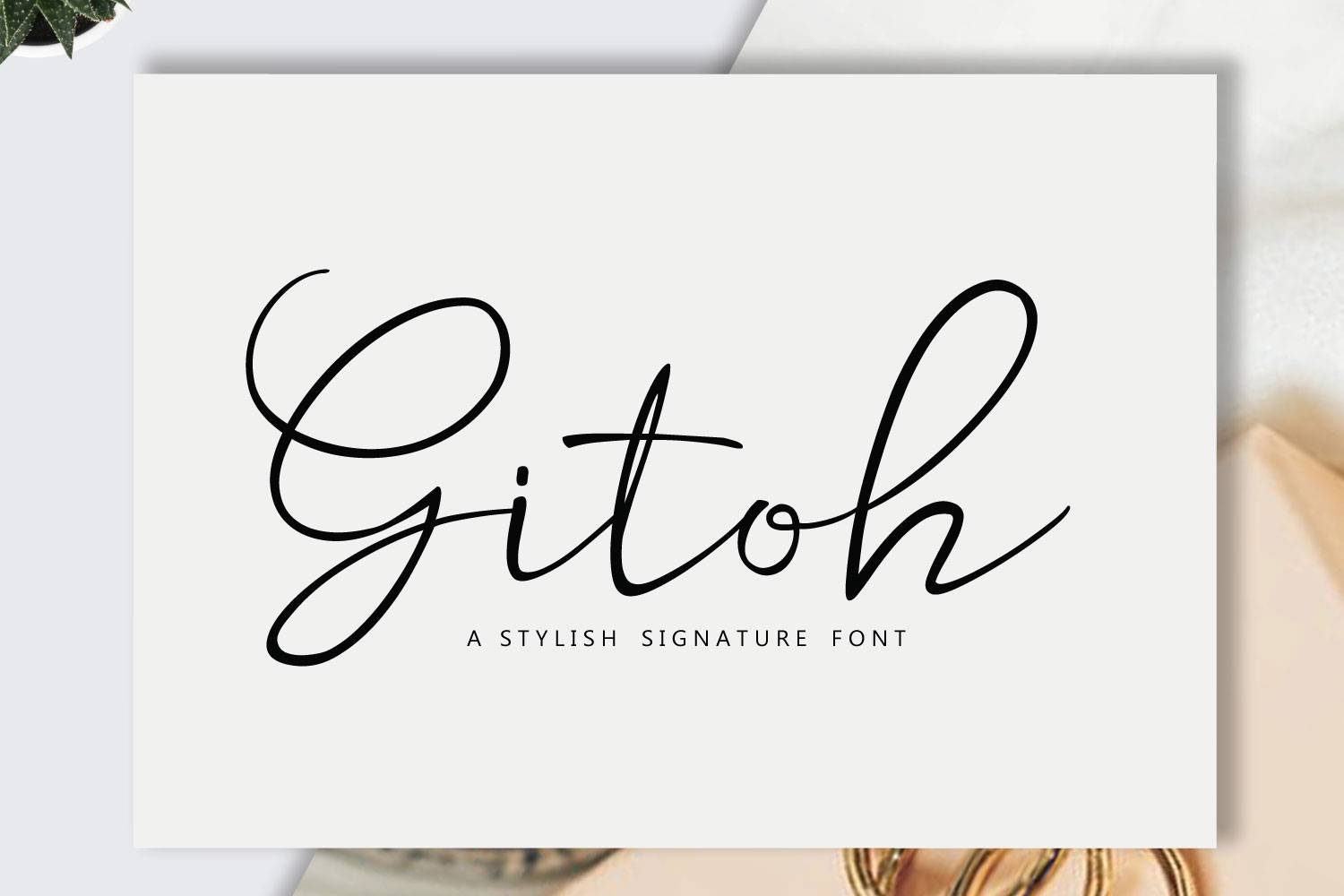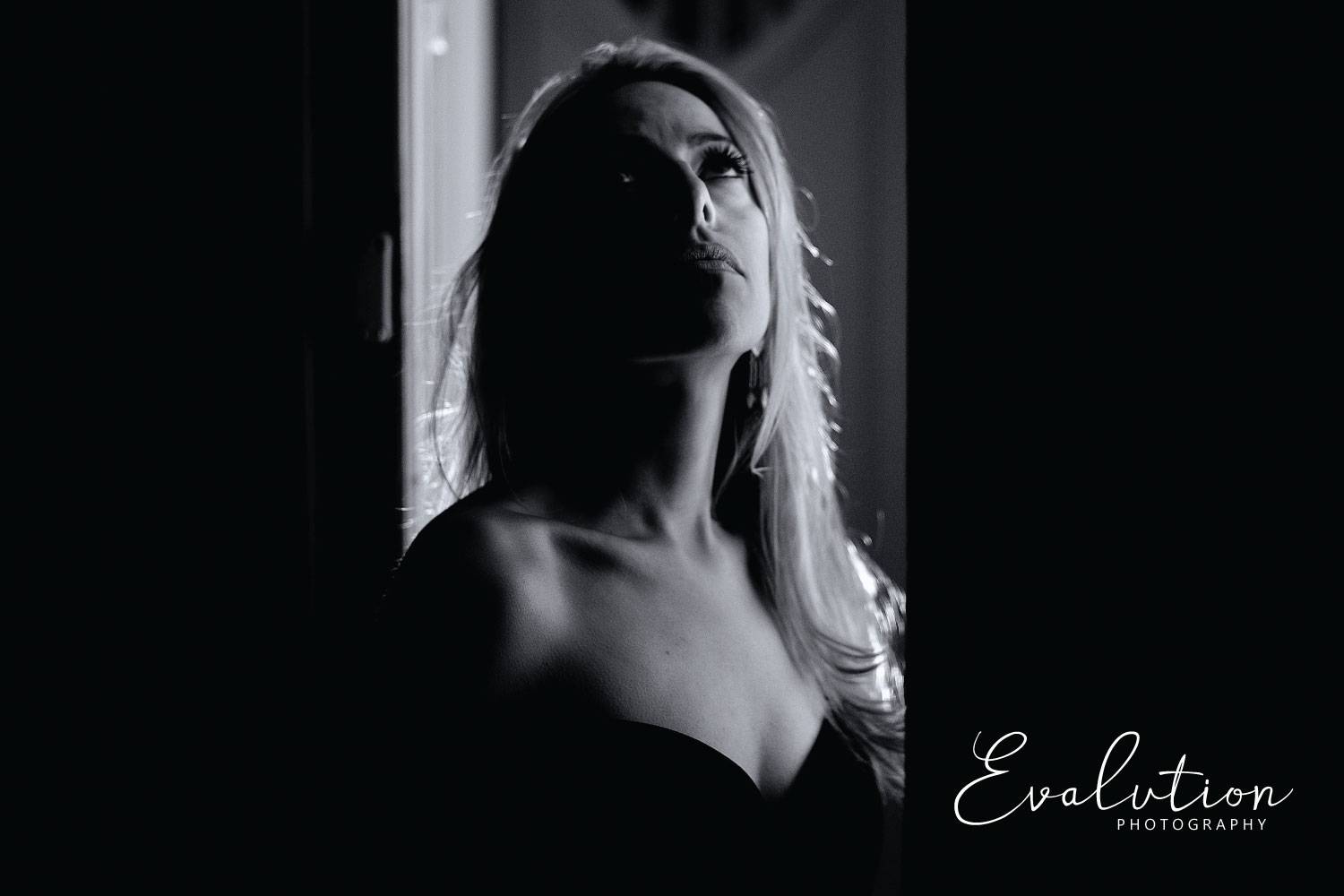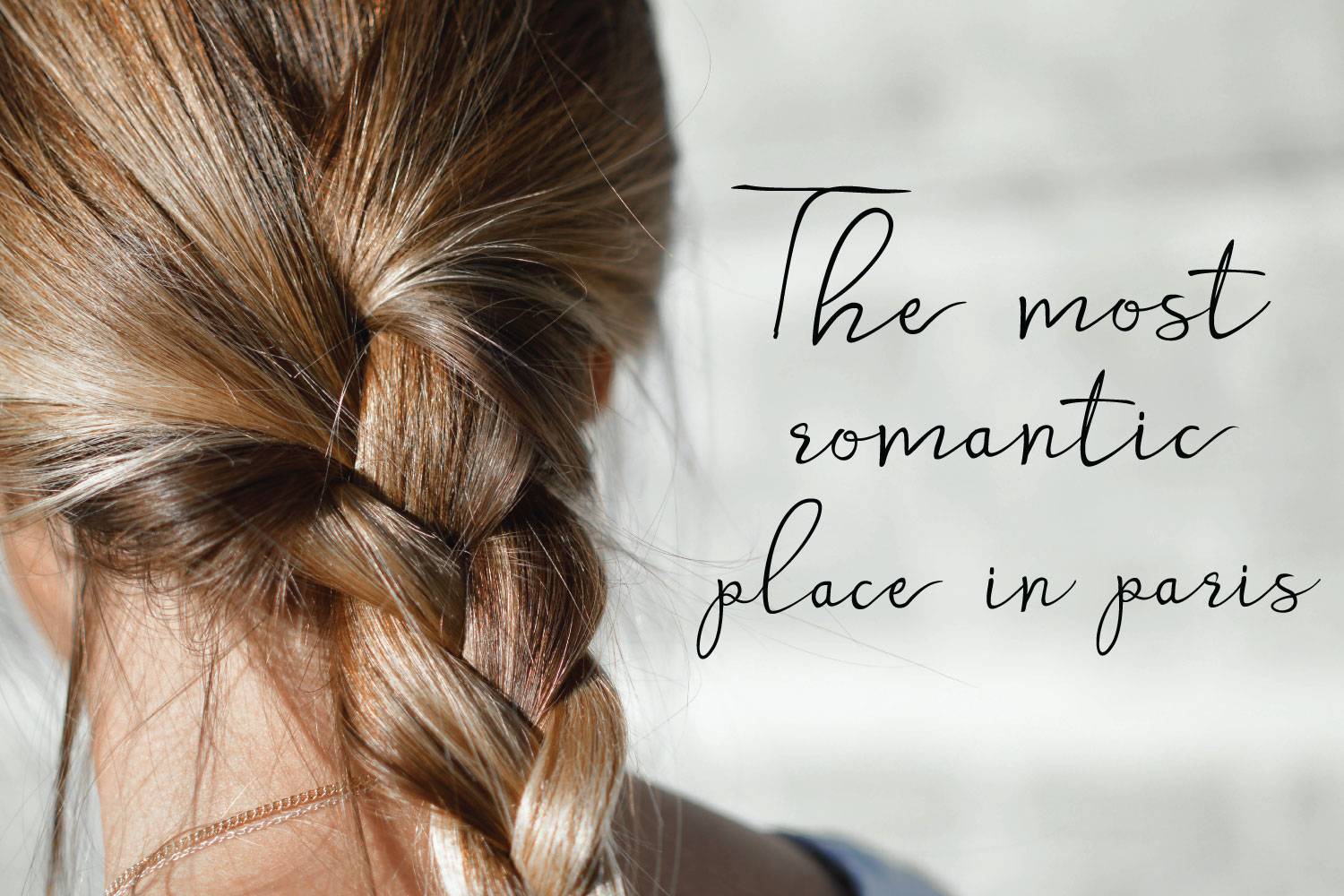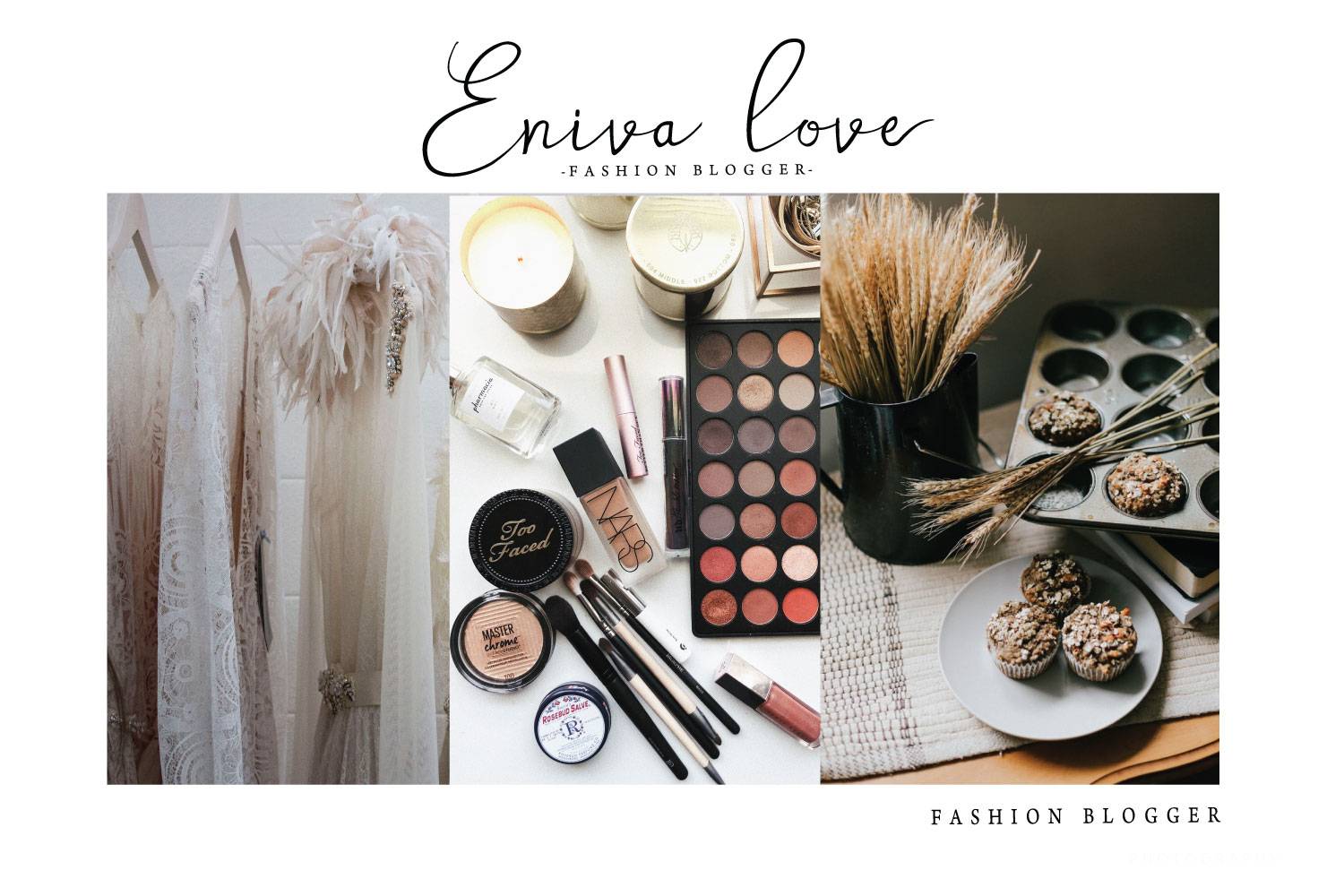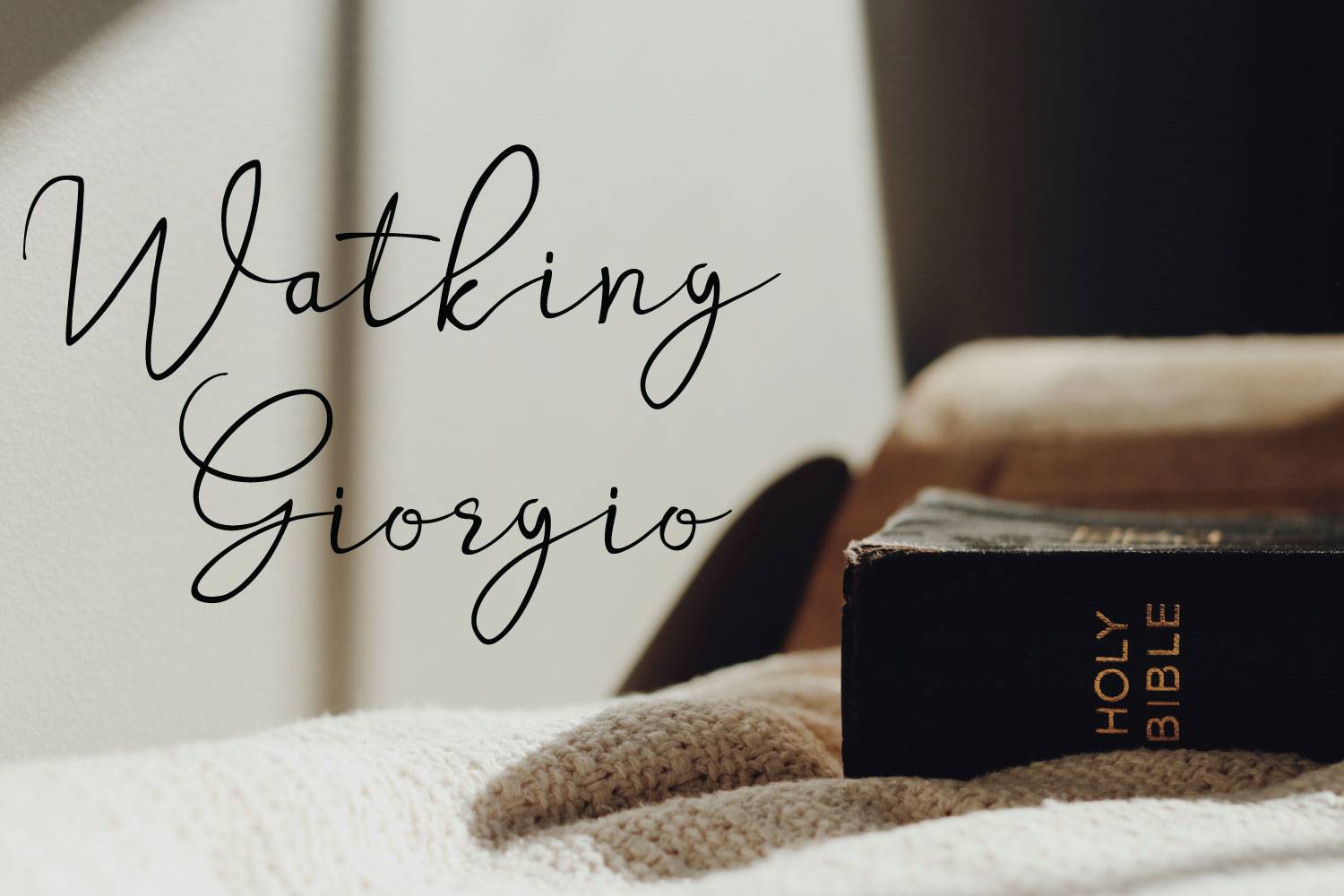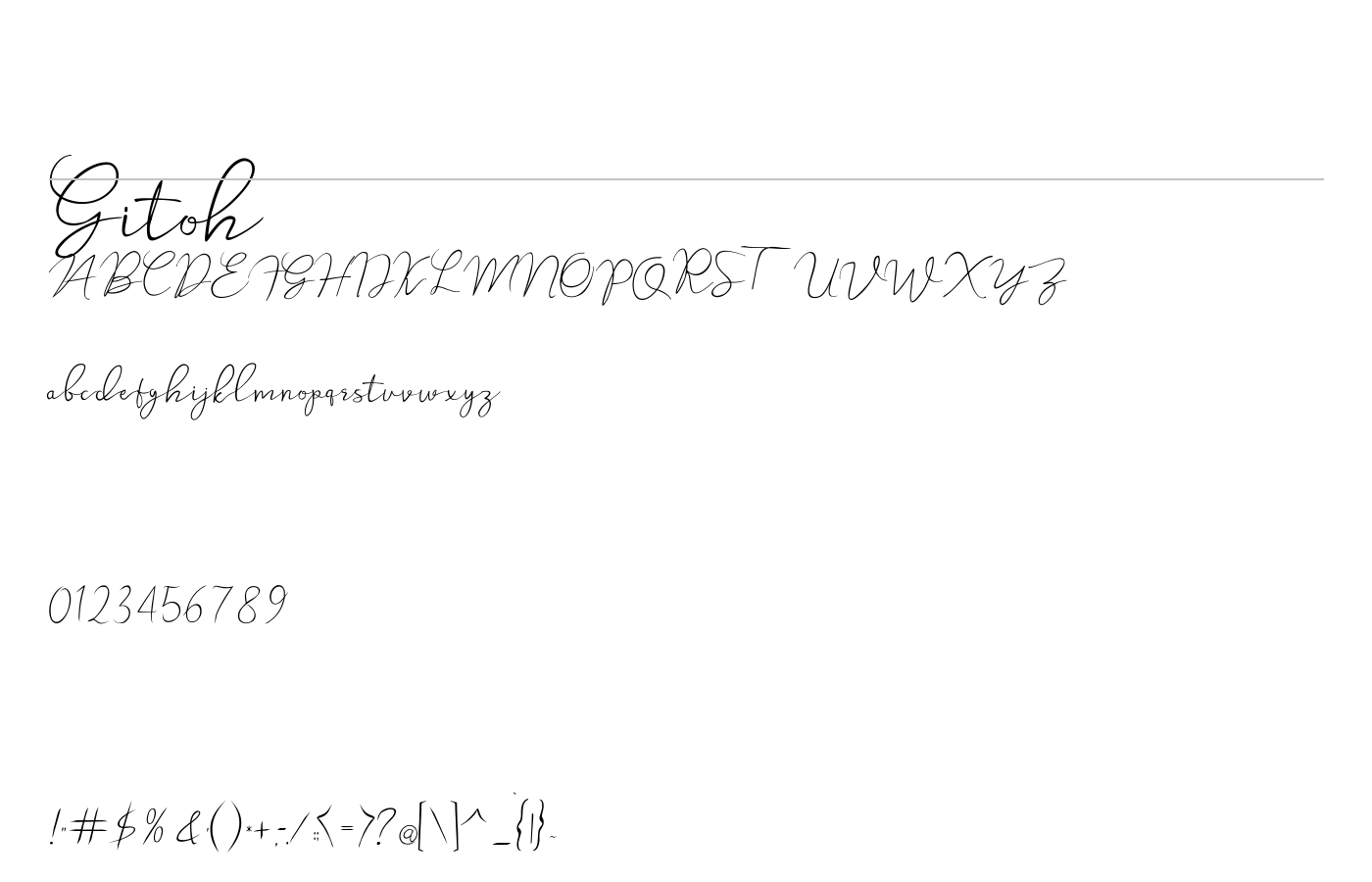
Gitoh is a delicate, elegant script font characterized by its thin, flowing strokes and graceful, handwritten style. It features a refined, airy appearance with slender letterforms that create a sophisticated and personal touch, making it ideal for invitations, branding, and creative projects that seek a light, artistic flair. Its stylish yet legible design conveys a sense of charm and refinement perfect for elegant and creative expressions.
Gitoh Font
About Gitoh Font